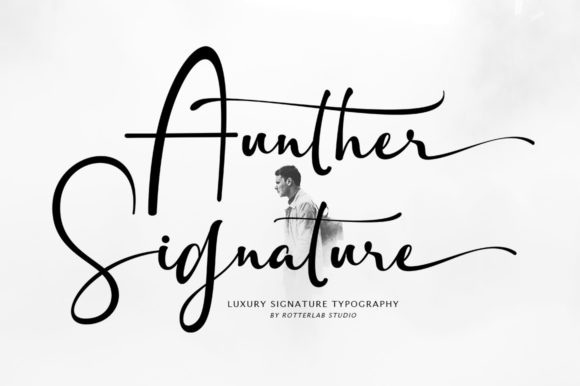
The Elusive Font: My Love Affair with Aunther Signature
I still remember the design project that led me to Aunther Signature. I was working on a branding project for a luxury wedding planner, and I needed a font that would convey elegance, sophistication, and romance. I spent hours scouring the internet, trying out different fonts, but none seemed to fit the bill. That was until I stumbled upon Aunther Signature. Its thin, lettered, and graceful script style immediately caught my eye, and I knew I had found the perfect fit.
What I Love About Aunther Signature
- ✨ Its ravishing style, perfect for creating gorgeous designs that exude luxury and sophistication
- ✅ PUA encoded, making it easy to access all glyphs and swashes
- 💫 A beautiful, handwritten feel that’s perfect for wedding designs, branding, and more
- 🎨 Highly versatile, suitable for a wide range of design projects, from invitations to packaging
While Aunther Signature is an amazing font, there are a few things to keep in mind:
- ⚠️ As a script font, it can be a bit challenging to read at small sizes. Make sure to use it at larger sizes or pair it with a clear, sans-serif font for body text.
- 🤔 Some users may find the font a bit too thin for certain design applications. Experiment with different weights or pair it with a bolder font for contrast.
The Designer Inspiration Behind Aunther Signature
While I couldn’t find any information on the designer behind Aunther Signature, I like to imagine that it was created by a talented typographer who wanted to craft a font that would evoke the elegance and sophistication of handwritten calligraphy. Perhaps the designer was inspired by the beautiful lettering of vintage wedding invitations or the flowing scripts of luxury branding campaigns.
A: PUA (Private Use Area) encoding allows font users to access a wide range of glyphs, swashes, and stylistic alternates that are not available in standard font encoding. This means that users can create more complex and beautiful designs using a single font.